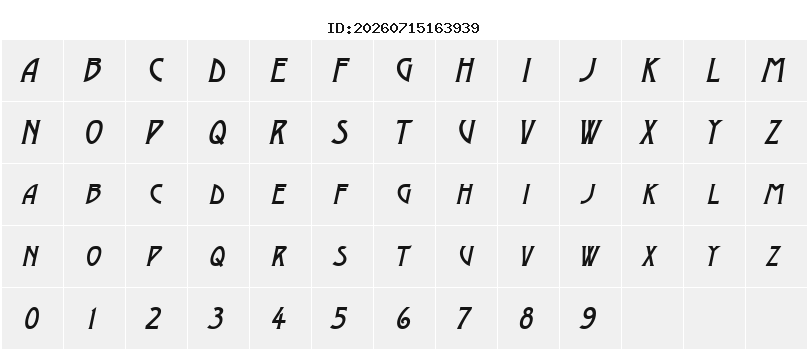
a_ModernoCaps Preview
• Font Name: a_ModernoCaps
• Full Font Name: a_ModernoCaps Italic
About a_ModernoCaps.ttf
a_ModernoCaps.ttf is a modern, elegant sans-serif font designed for ultimate readability and visual harmony. Perfect for branding, headlines, web design, and print materials.